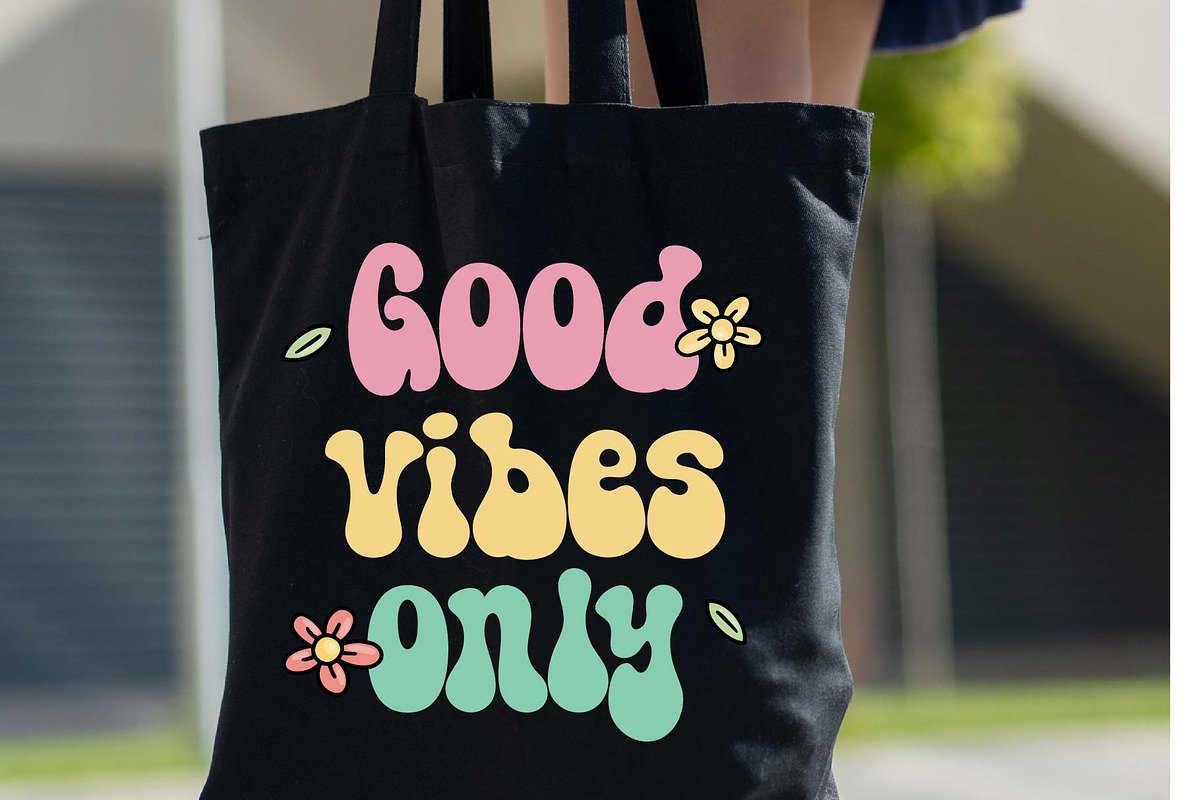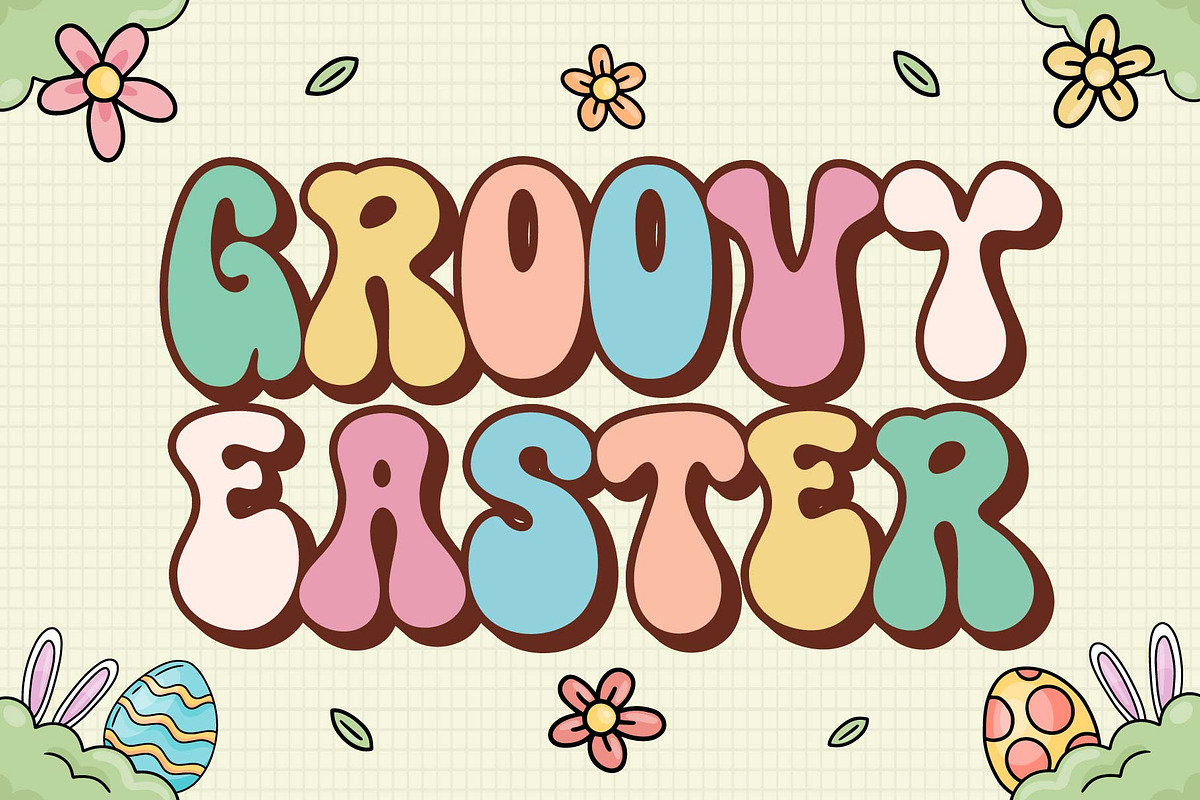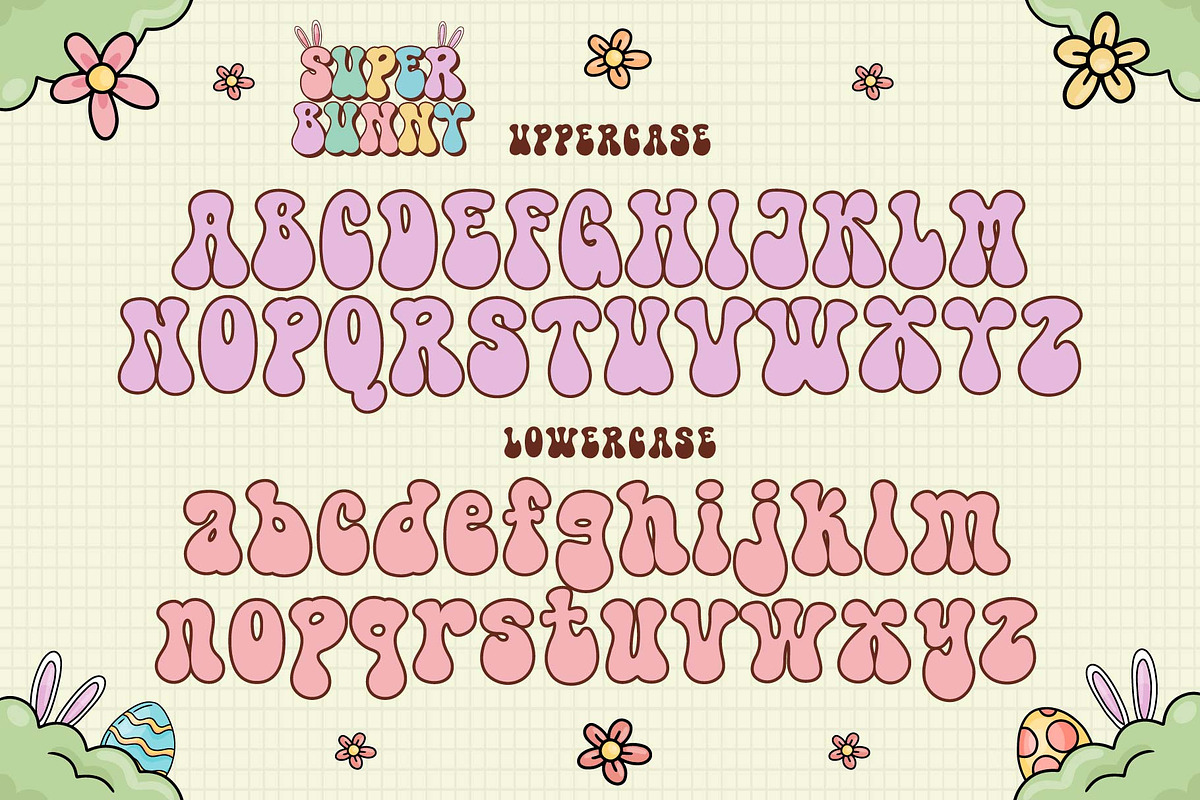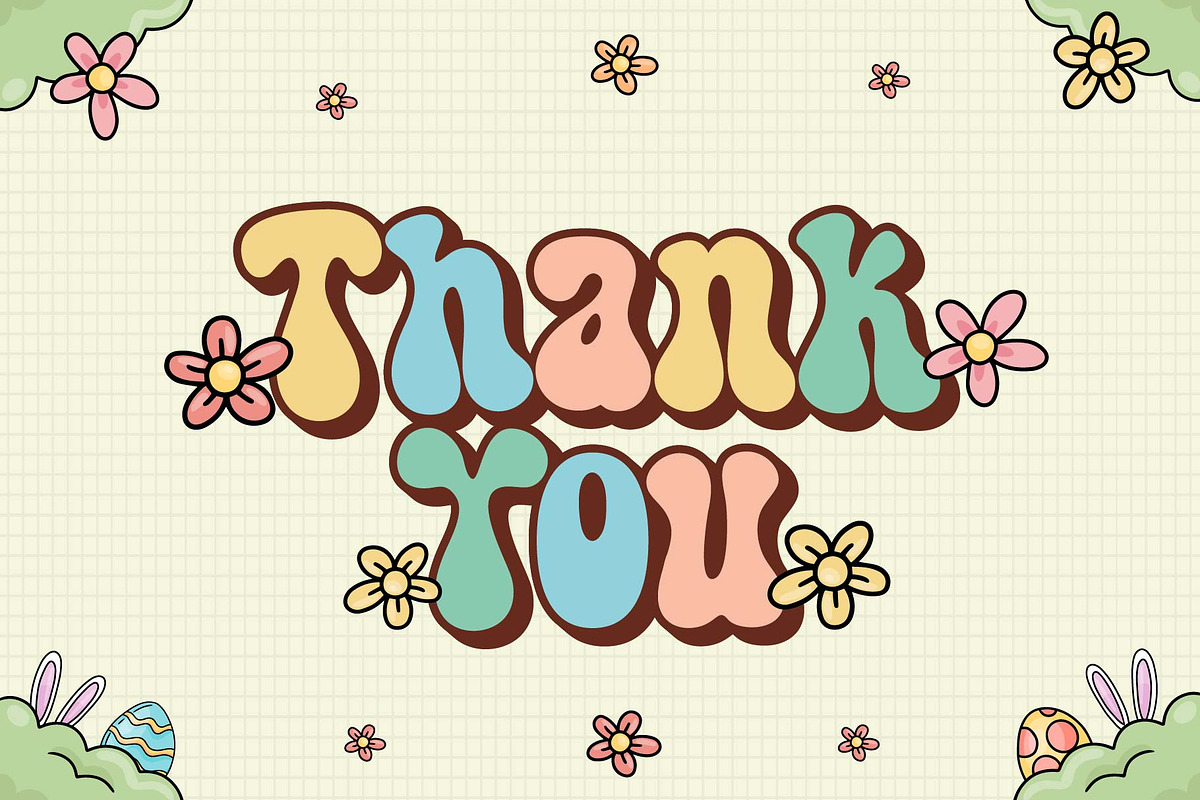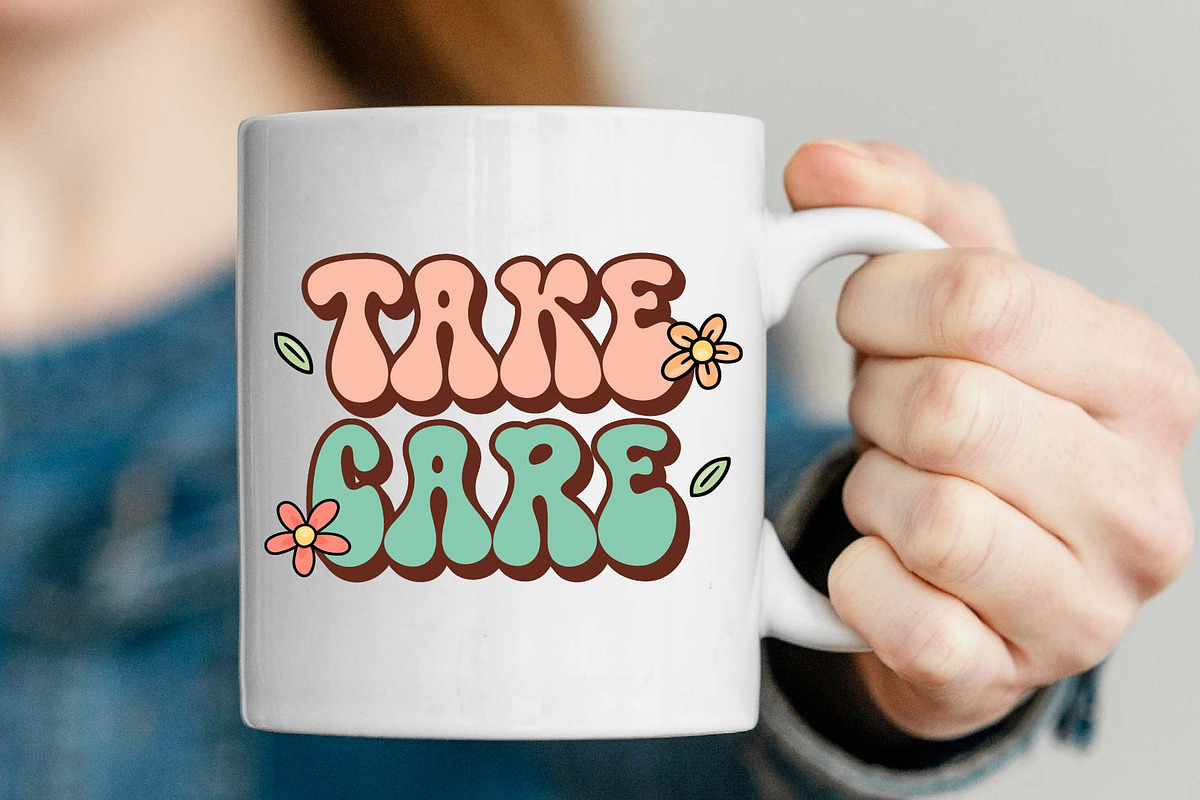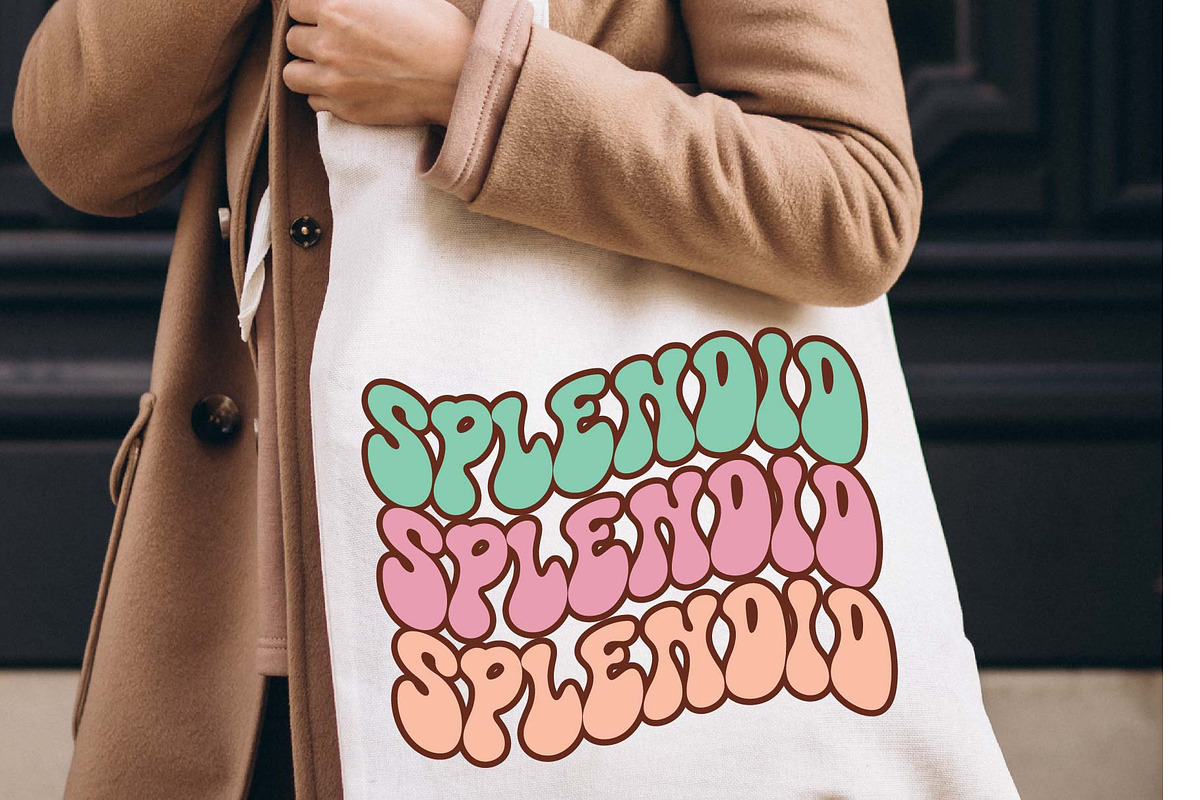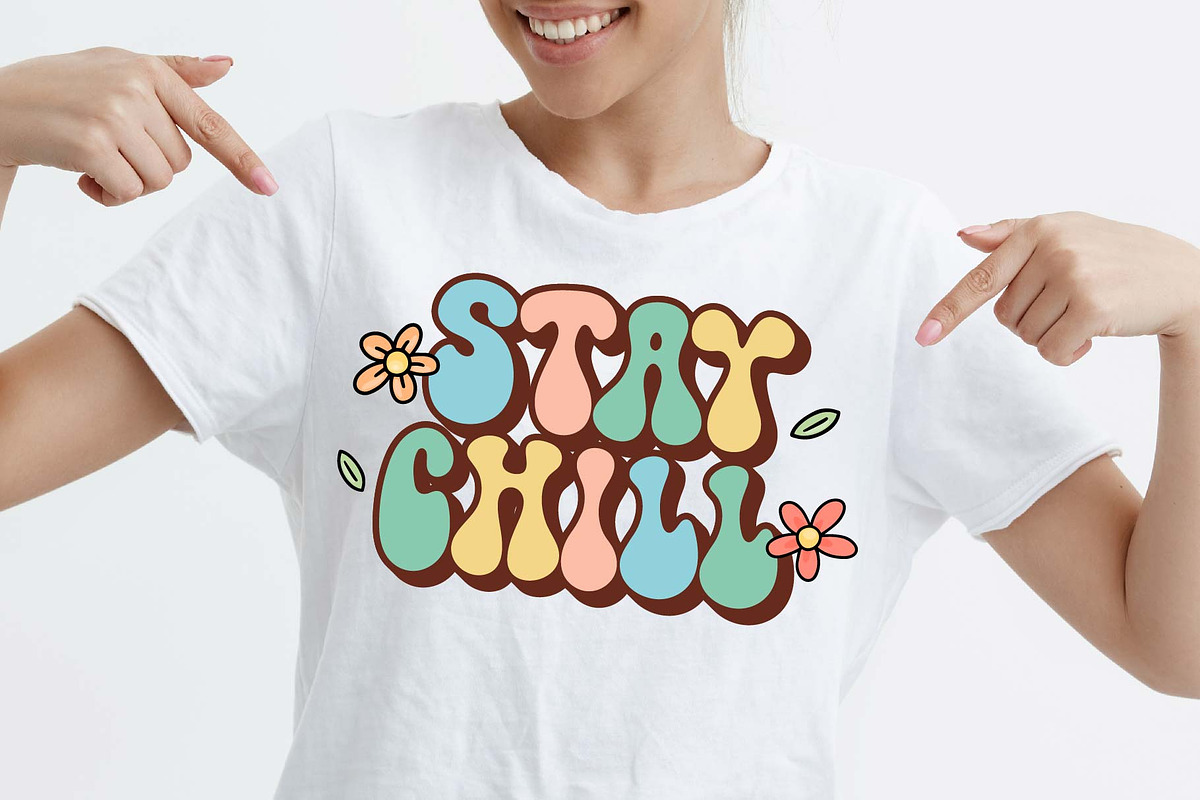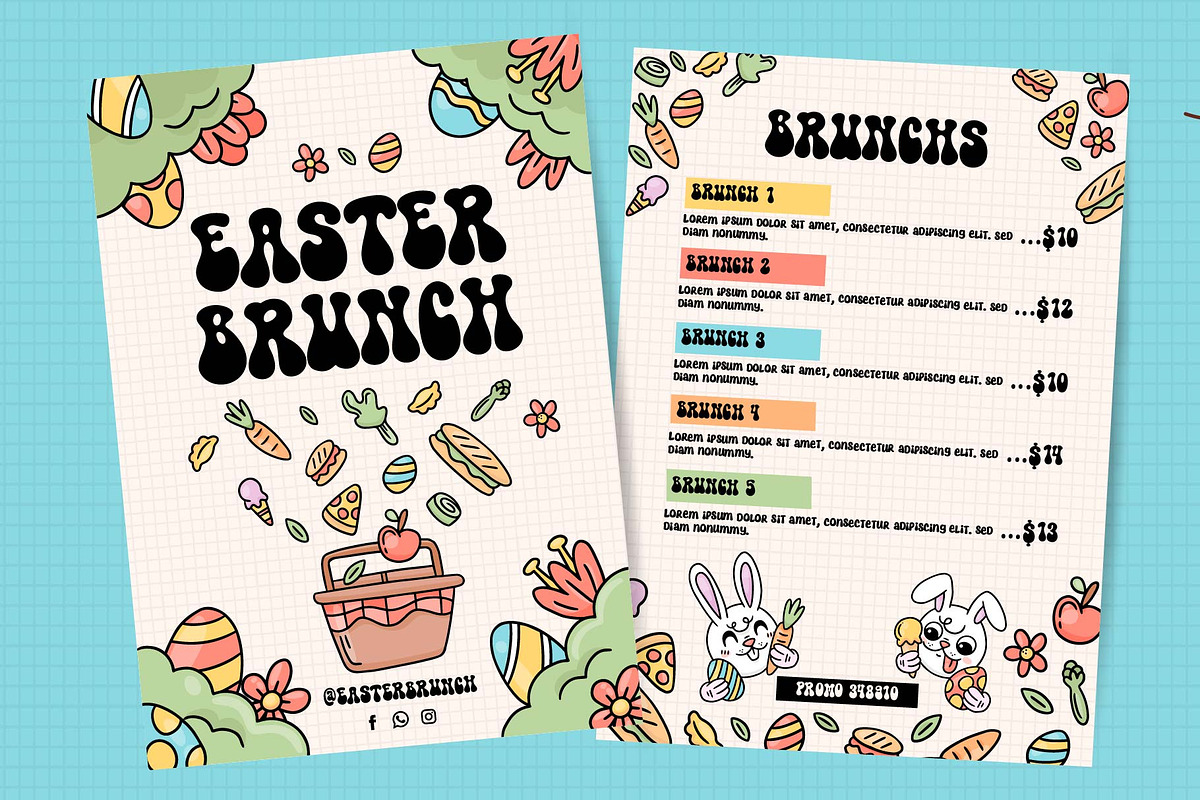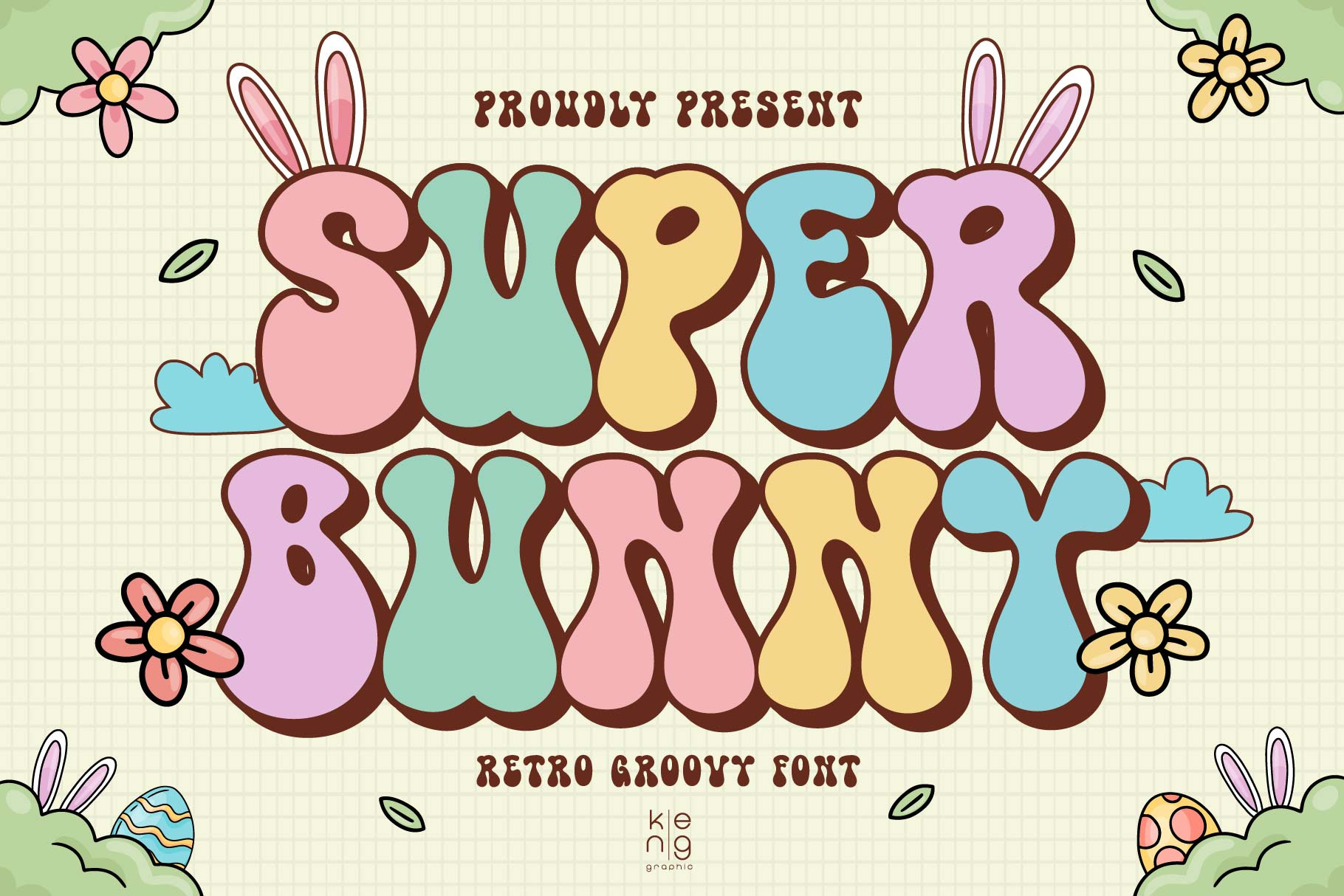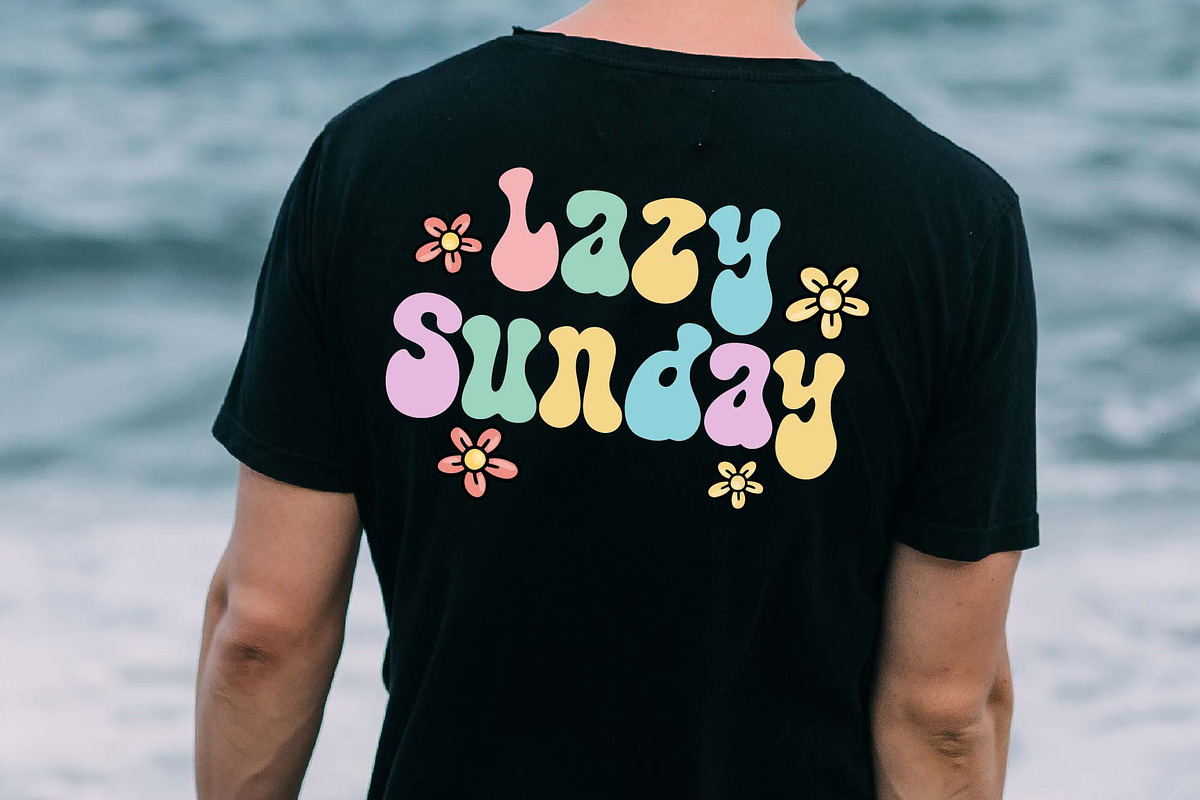
Super Bunny Font
Meet Super Bunny, a whimsical and dynamic font adorned with an energetic charm. Vested with an extraordinary lively appeal, this font embodies the joyous aura of Easter while flawlessly adapting to every season. From adding a personal touch to your mugs, giving a fresh vibe to t-shirts or infusing your bags with spunk, Super Bunny transforms each creation into something spellbinding. Its versatility illuminates various menus and an array of design schemes, enhancing your creative visuals and elevating every minor detail into a joyous spectacle. Dive into the unconventional, groovy aesthetics of Super Bunny that vivaciously animates your designs.